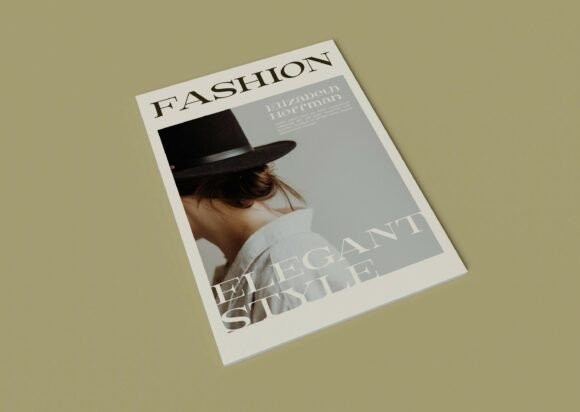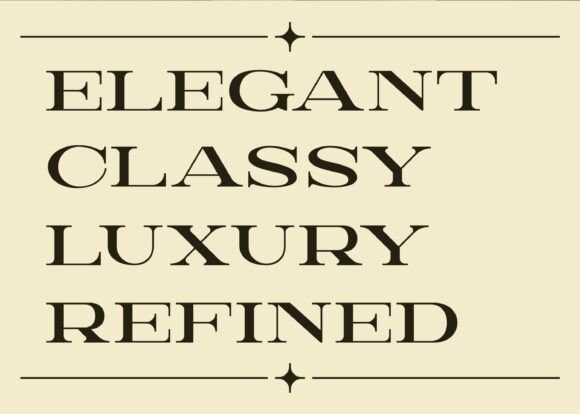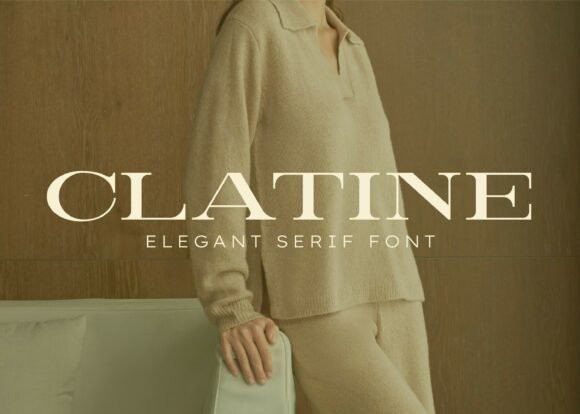
Clatine Font
Clatine Font a high-class, luxury vibe. I created it to bring a sense of timeless sophistication to your work. With its sharp contrast and balanced curves, it is an ideal choice for fashion branding, editorial layouts, or upscale packaging that demands a premium look.